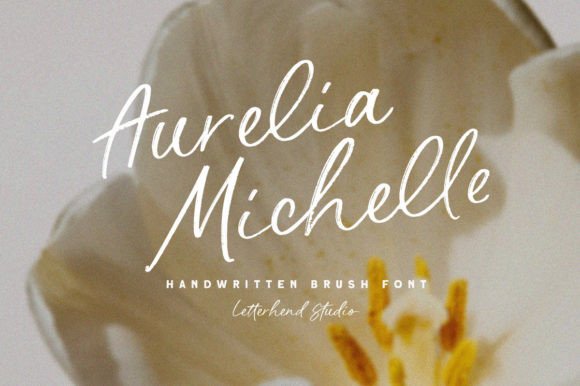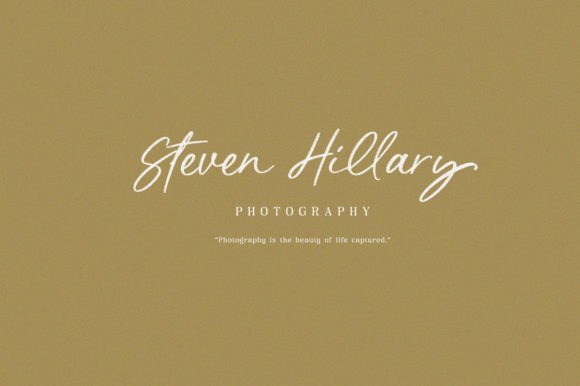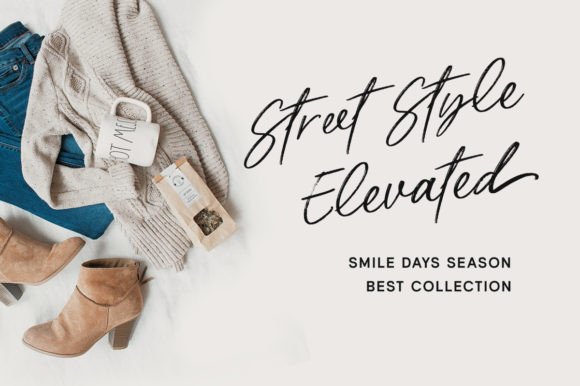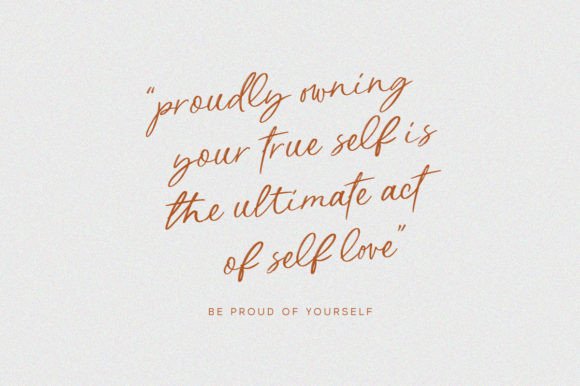
Aurelia Michelle Font
About the Aurelia Michelle Font
Add a touch of class to your work with the Aurelia Michelle Font, a truly exceptional typeface. Meet Aurelia Michelle, the hand-drawn font that exudes effortless femininity and chic sophistication. With its brush texture and delicate curves, this font is perfect for adding a touch of elegance to any design project.
Aurelia Michelle’s delicate curves and brush texture make it ideal for projects requiring a touch of feminine elegance, such as wedding invitations, branding for beauty products, or fashion-related marketing materials. It excels in headlines, short text blocks, and logos, adding a sophisticated hand-drawn feel. However, its less-than-optimal legibility makes it unsuitable for extended body text or UI elements where readability is paramount.
Pairing Aurelia Michelle with a clean sans-serif like Lato or Open Sans provides a strong contrast, balancing its organic texture with modern simplicity. For a more luxurious feel, consider pairing it with a classic serif font like Garamond or Didot. Avoid pairing it with other highly decorative or script fonts, which could create visual clutter.
The font’s overall personality is sophisticated yet approachable; elegant but not overly formal. Its hand-drawn quality lends a sense of warmth and personality, making it suitable for brands aiming for a refined yet friendly image.
Aurelia Michelle Font Usage Examples
Aurelia Michelle Font Example